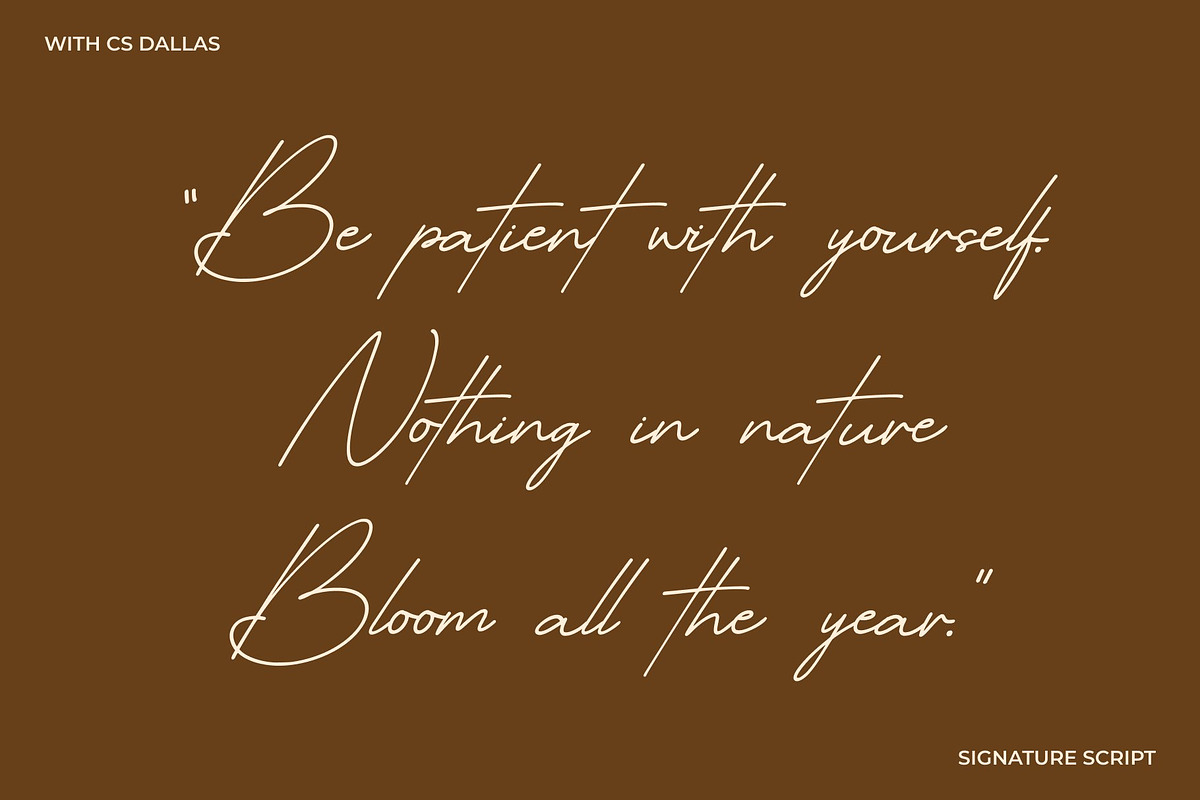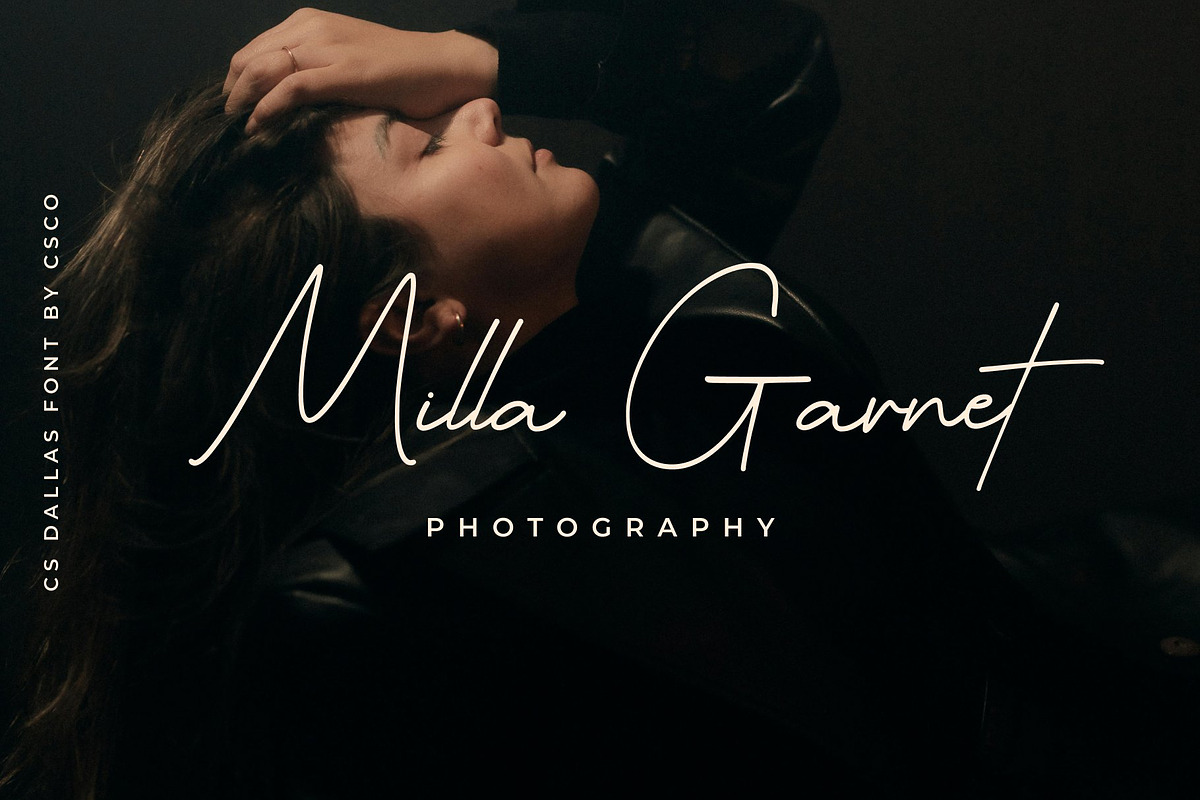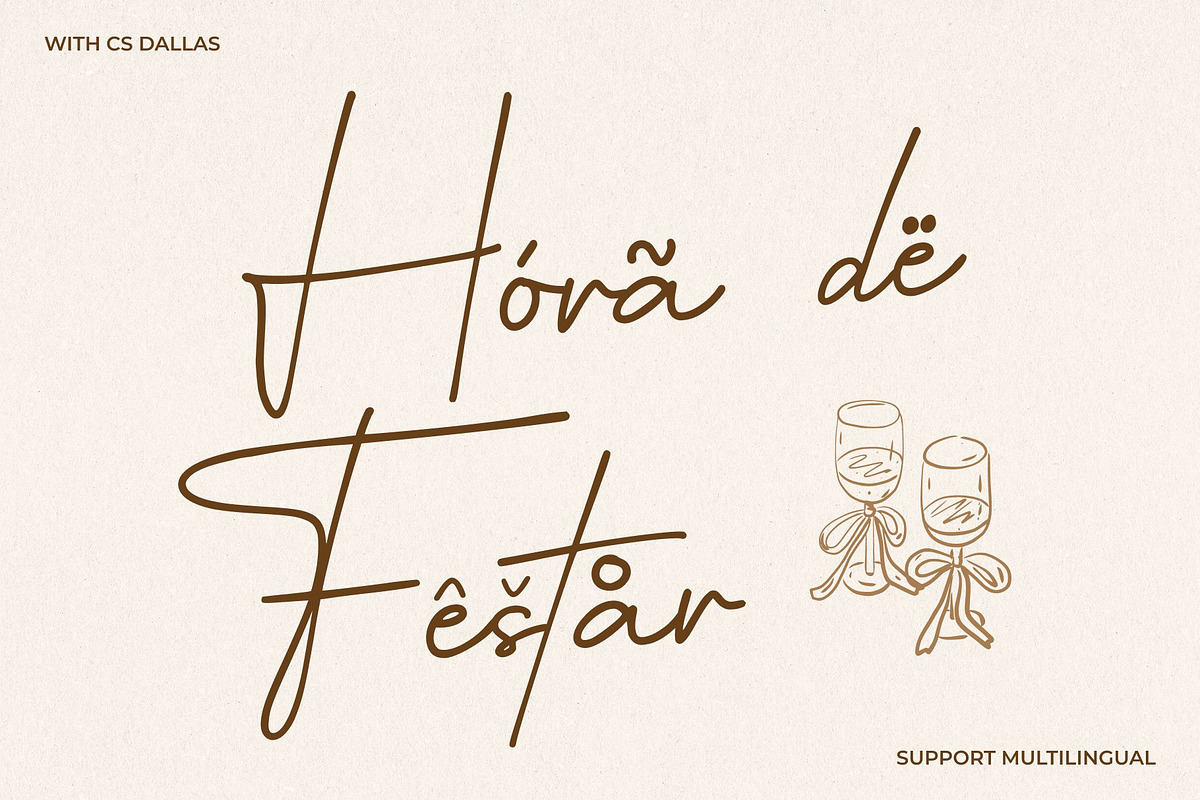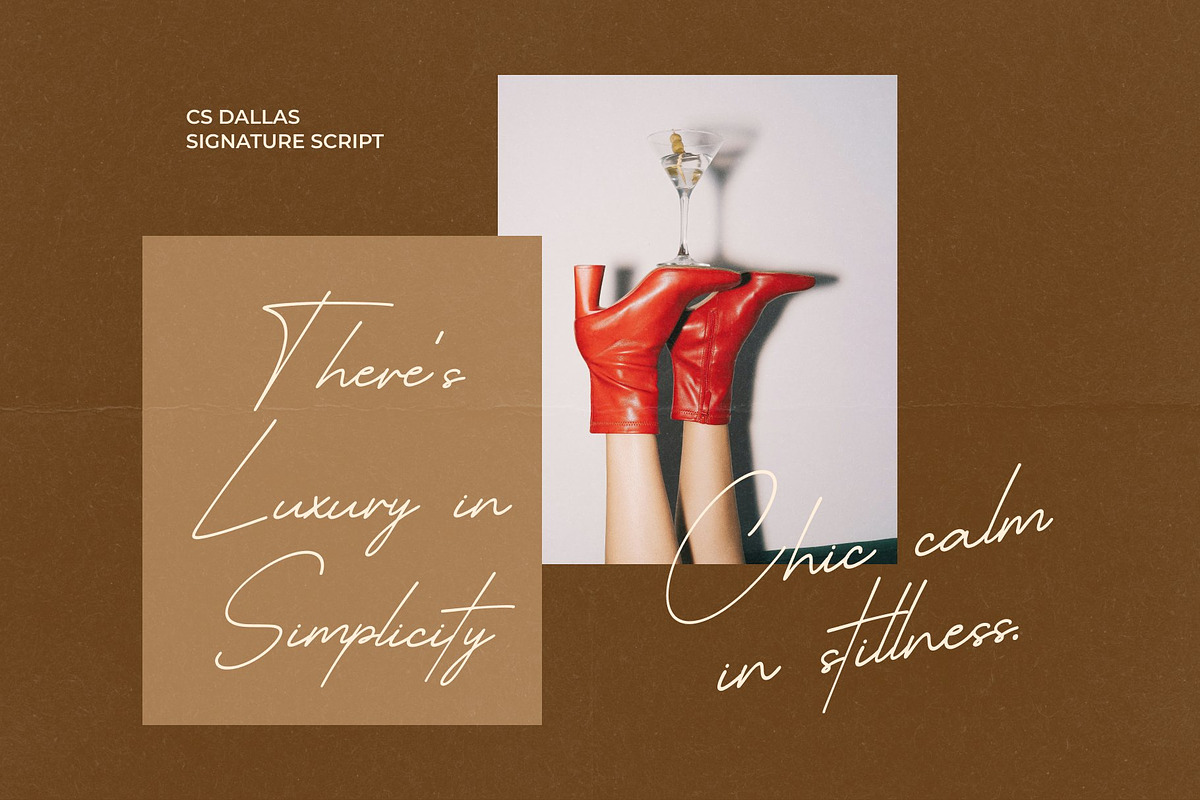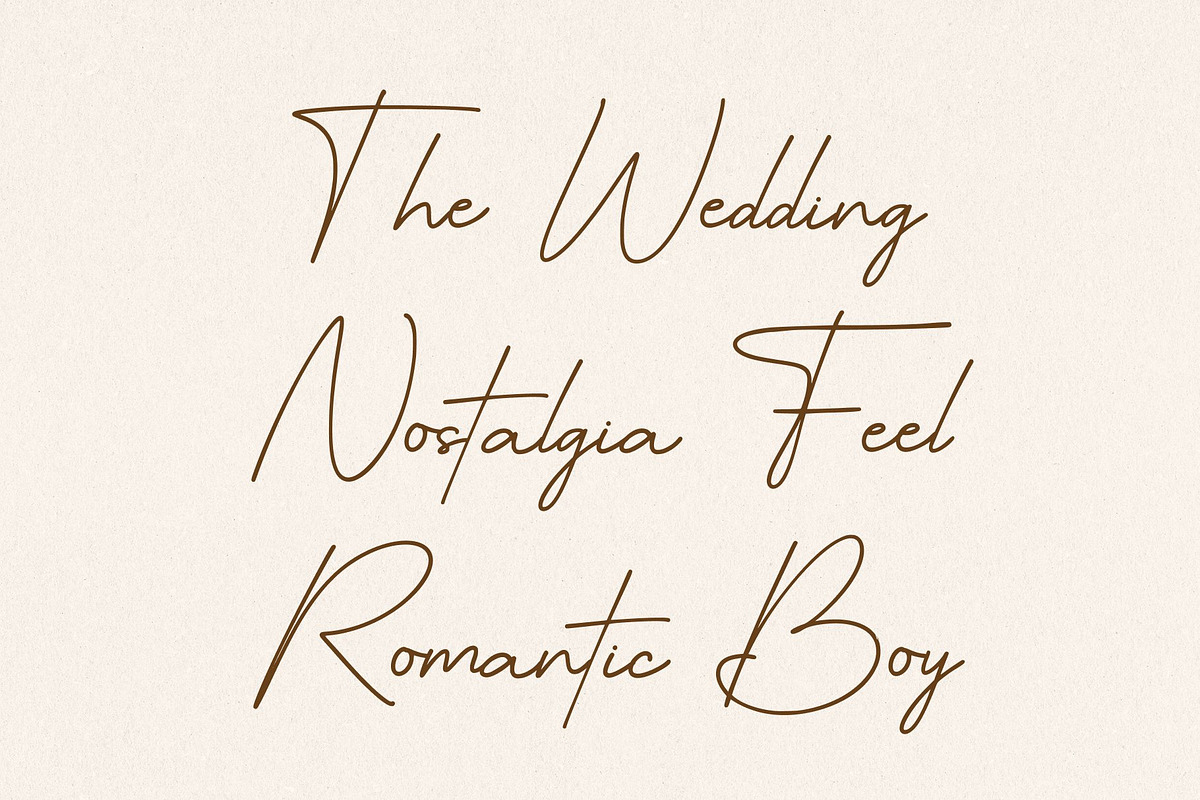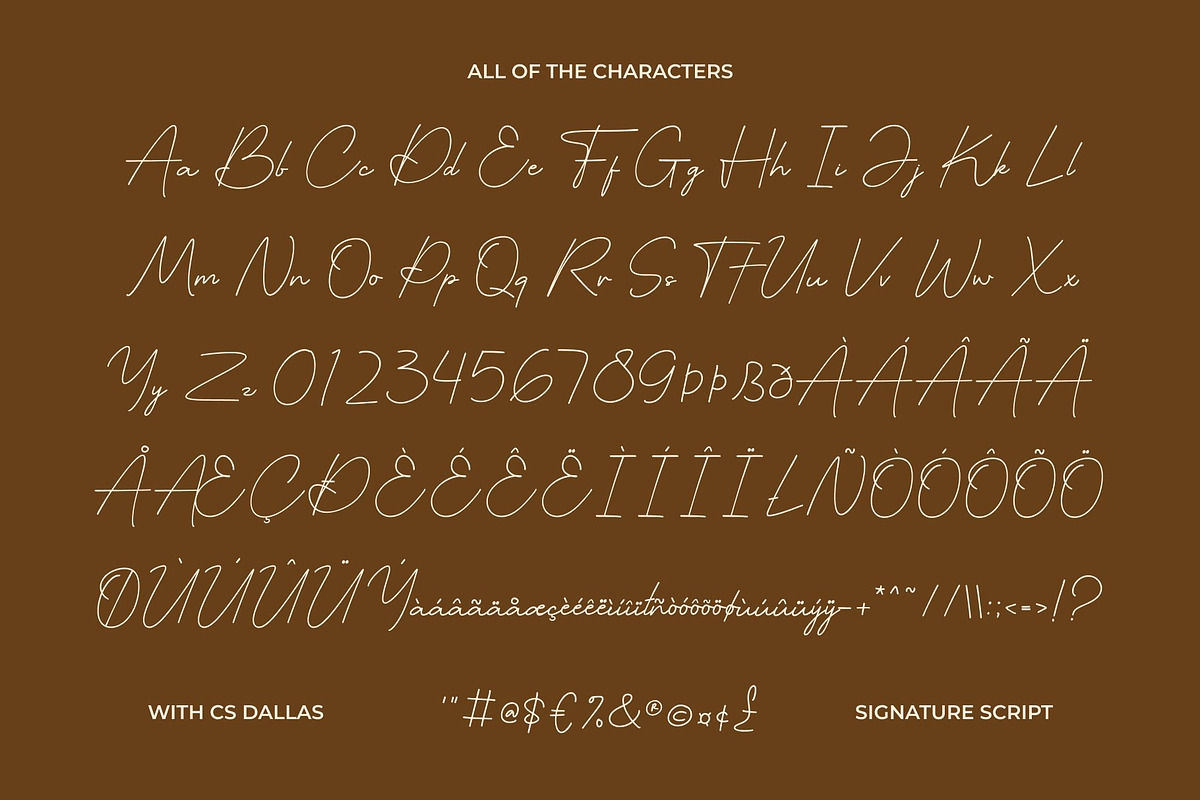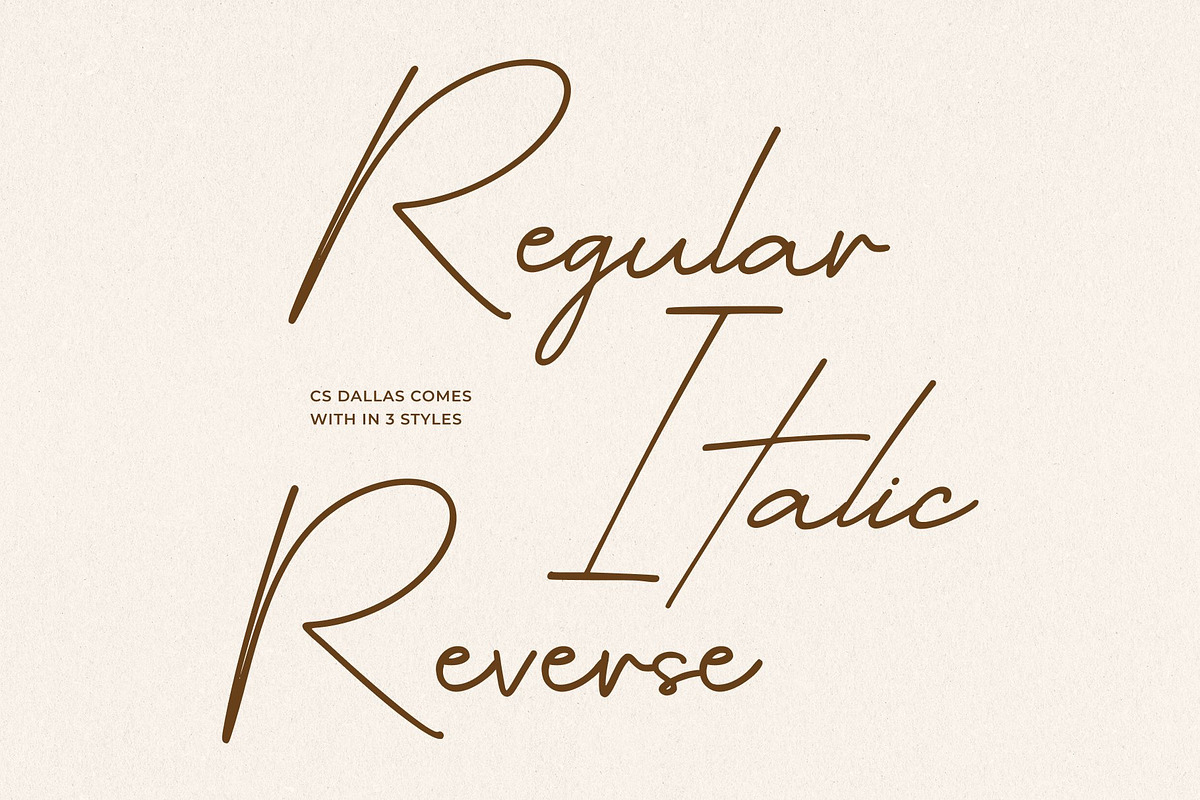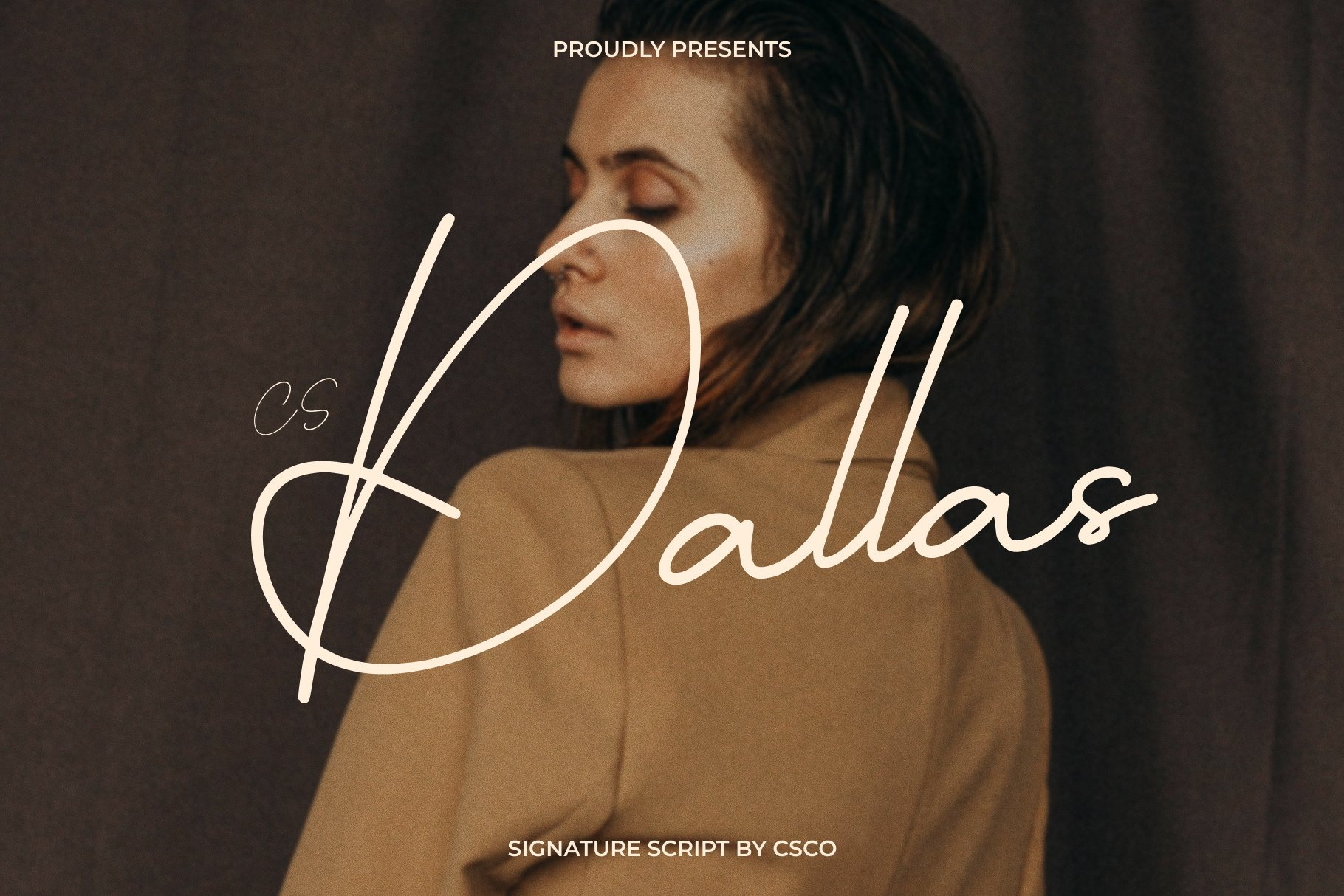
CS Dallas – Signature Font
CS Dallas – Signature Elegance with Personal Character
Signature Script Font with Handwritten Authenticity This is a signature script font designed to reflect the personal and unique nature of handwritten signatures. Inspired by natural pen movement and fluid writing, this font delivers an authentic and refined handwritten feel that adds individuality and character to any design. Its smooth flow and confident strokes create a sense of exclusivity, making ideal for projects that value personality and sophistication.
Natural Flow with Distinctive Style The letterforms of this font feature graceful connections and organic stroke variations that closely resemble real signature writing. Each character feels intentional yet effortless, capturing the spontaneity of handwriting while maintaining a polished appearance. This distinctive style allows the font to stand out as a personal mark, perfect for creating memorable visual identities.
Elegant Expression for Premium Design This font balances softness and confidence, giving it a refined elegance suited for high-end applications. Its flowing script conveys professionalism, warmth, and luxury without feeling overly decorative. The font works beautifully as a focal element, adding a sense of authenticity and prestige to designs that aim to feel personal and exclusive.
Ideal for Logos, Branding, and Luxury Invitations Designed for premium and personal use, This font is ideal for logos, branding, luxury invitations, packaging, and fashion or beauty-related projects. Its signature-inspired form makes it especially suitable for personal brands, boutique businesses, and upscale event materials.
- CS Dallas Regular
- CS Dallas Italic
- CS Dallas Reverse Italic